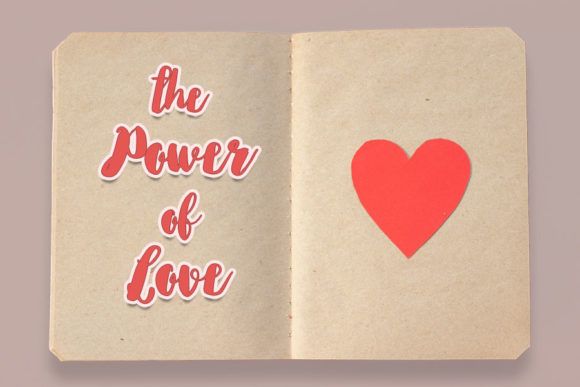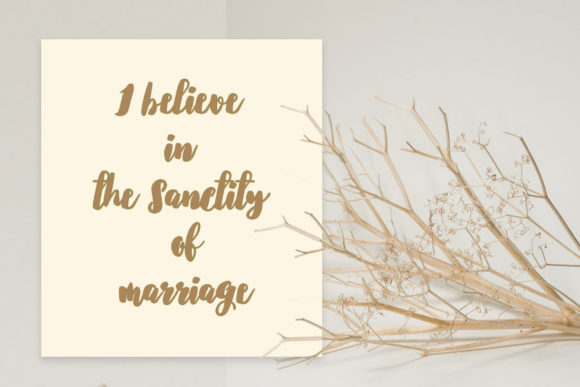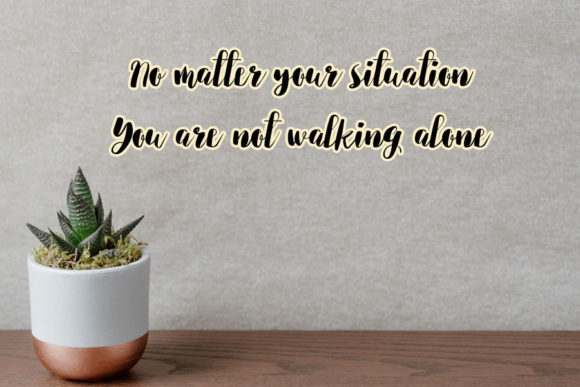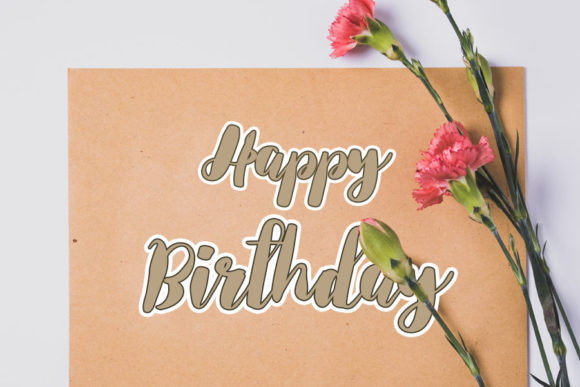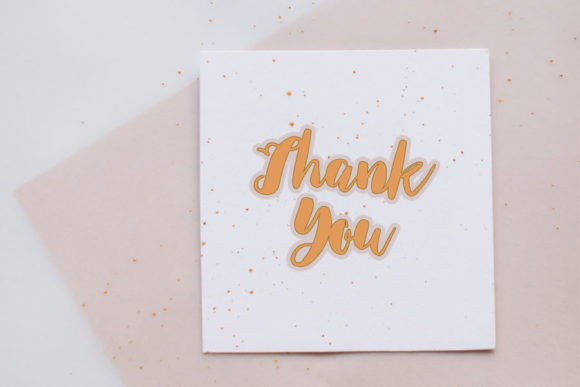
The Perfect Bouquet of Typography: Beauty Flower Font
There’s nothing quite like the thrill of watching a design come together. You’re brainstorming, sketching, and experimenting, and suddenly – it all clicks. Your creative vision takes shape, and you know exactly how to bring it to life. For designers like you, the right font can be the difference between a good design and a truly stunning one. That’s where the Beauty Flower Font comes in – a masterfully designed handwritten font that’s about to become your new favorite.
With its PUA encoded glyphs and swashes, the Beauty Flower Font gives you the freedom to get creative and push the boundaries of typography. Whether you’re working on a branding project, a wedding invitation, or a social media campaign, this font is sure to elevate your designs and leave a lasting impression. It’s not just a font – it’s a tool to help you express your unique style and bring your ideas to the next level.
Key Features of Beauty Flower Font
- Font Family: Beauty Flower Font is a unique, handwritten script font designed to evoke a sense of elegance and sophistication.
- Unique Characteristics: Beauty Flower Font features a distinctive, flowing script design with intricate flourishes and ornaments, making it perfect for creating visually striking and eye-catching designs.
Beauty Flower Font Review
When I first laid eyes on the Beauty Flower Font, I was immediately drawn in by its whimsical and delicate appearance. ✨ The intricate details and curvaceous lines evoke a sense of romance and elegance, making it perfect for projects that require a touch of femininity. ✨ The font is highly customizable, allowing users to adjust the size, color, and even add special effects to make it truly unique. ✨
One of the standout features of the Beauty Flower Font is its versatility. It can be used for a wide range of projects, from wedding invitations to branding materials, and even as a decorative element in digital art. ✨
- ⚠️ The font may not be suitable for projects that require a more modern or edgy look, as its delicate appearance may come across as too sweet or childish.
Overall, I would say that the Beauty Flower Font is a beautiful addition to any designer’s toolkit. While it may have some limitations, its unique charm and versatility make it a great choice for projects that require a touch of elegance and romance.
Tips for Getting the Most Out of Beauty Flower Font
Use the Beauty Flower Font to add a touch of elegance and whimsy to your designs. Experiment with different font sizes, colors, and styles to create a unique look. You can also pair the font with other elegant fonts or distressed fonts for a contrasting effect.
The Beauty Flower Font is ideal for:
- Baby shower invitations and decorations
- Floral-themed branding and marketing materials